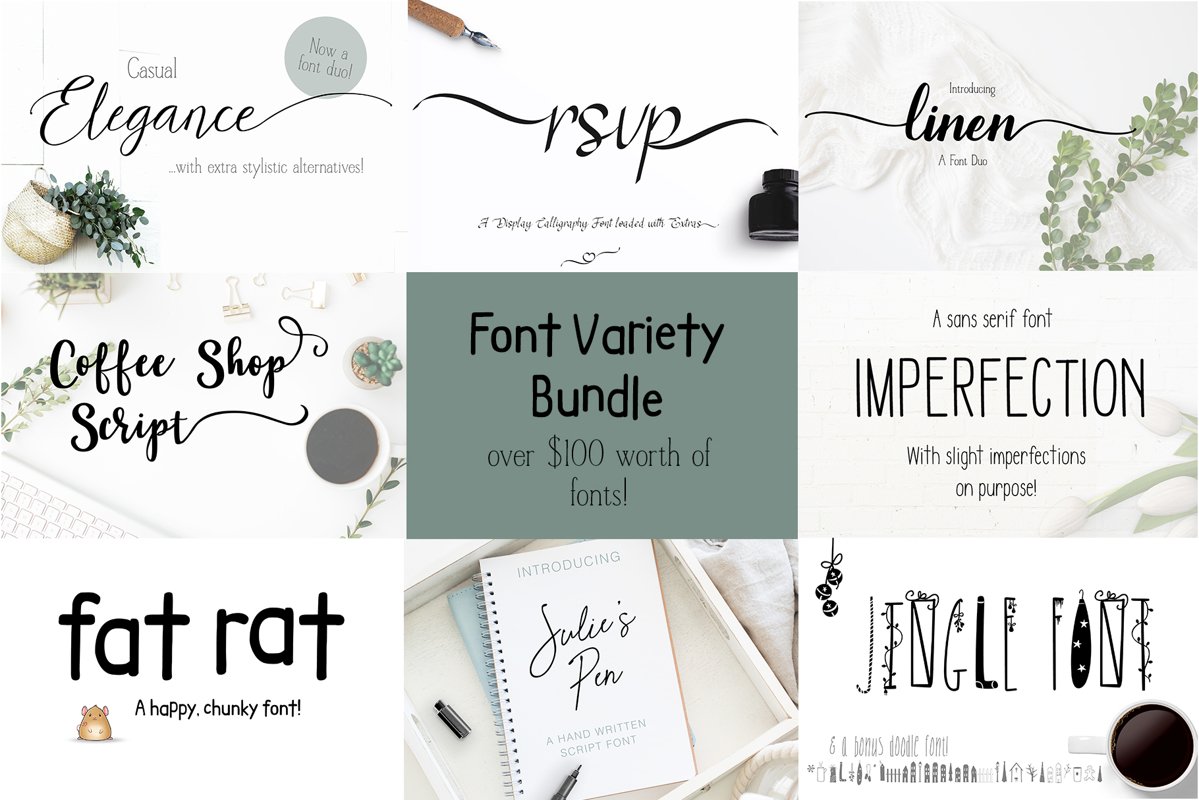
My Best Sellers Font Bundle Variety
This Font Bundle has a large combination of most of my best selling fonts it includes:
• Casual Elegance - a font duo with stylistic alternatives
• Coffee Shop Script - a fun script font with extra end swashes
• Fat Rat - my happy chunky and playful font
• Julie's Pen - a handwritten gel pen look
• Imperfection - A sans serif font made with slight perfections on purpose for hand written look
• Jingle Font - a Christmas Holiday font loaded with extras!
• Linen - my font due that is a thick script font paired with a serif